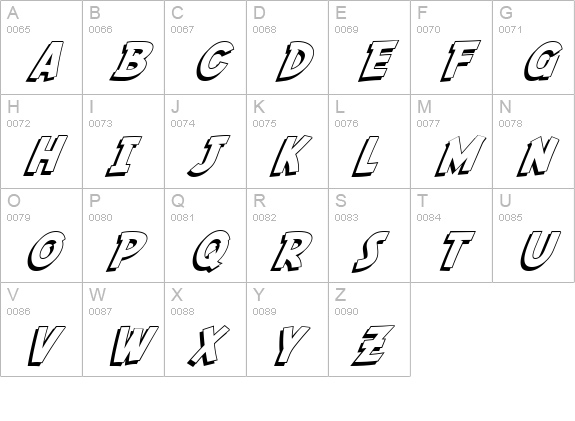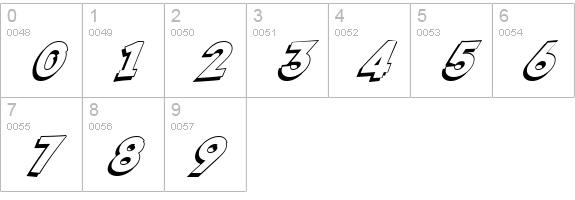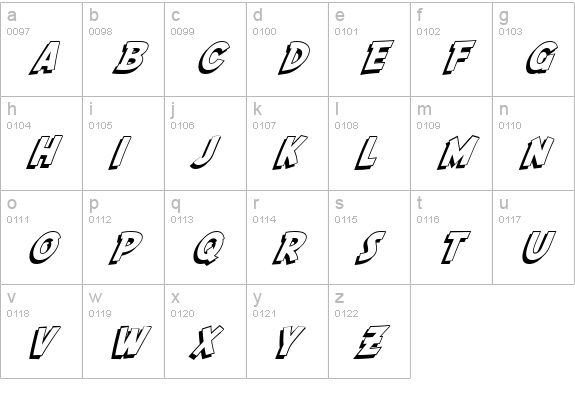
SF Fedora Shadow Font Details
Below you can preview SF Fedora Shadow in uppercase [A-Z], lowercase [a-z] and numbers [0-9]. You can also read the author's notes and license information before downloading.
SF Fedora Shadow font is a modern and sleek typeface that exudes sophistication and elegance. With its bold and stylish design, this font is perfect for adding a touch of class to your projects. The unique shadow effect adds depth and visual interest, making your text stand out. What's even better is that SF Fedora Shadow font is available for free download at FontsMarket.com. You can easily enhance your designs and make a statement with this versatile and eye-catching font. Whether you're working on branding, advertising, or any other creative project, SF Fedora Shadow font is sure to make a lasting impression. Download it today and elevate your designs with this stunning typeface.